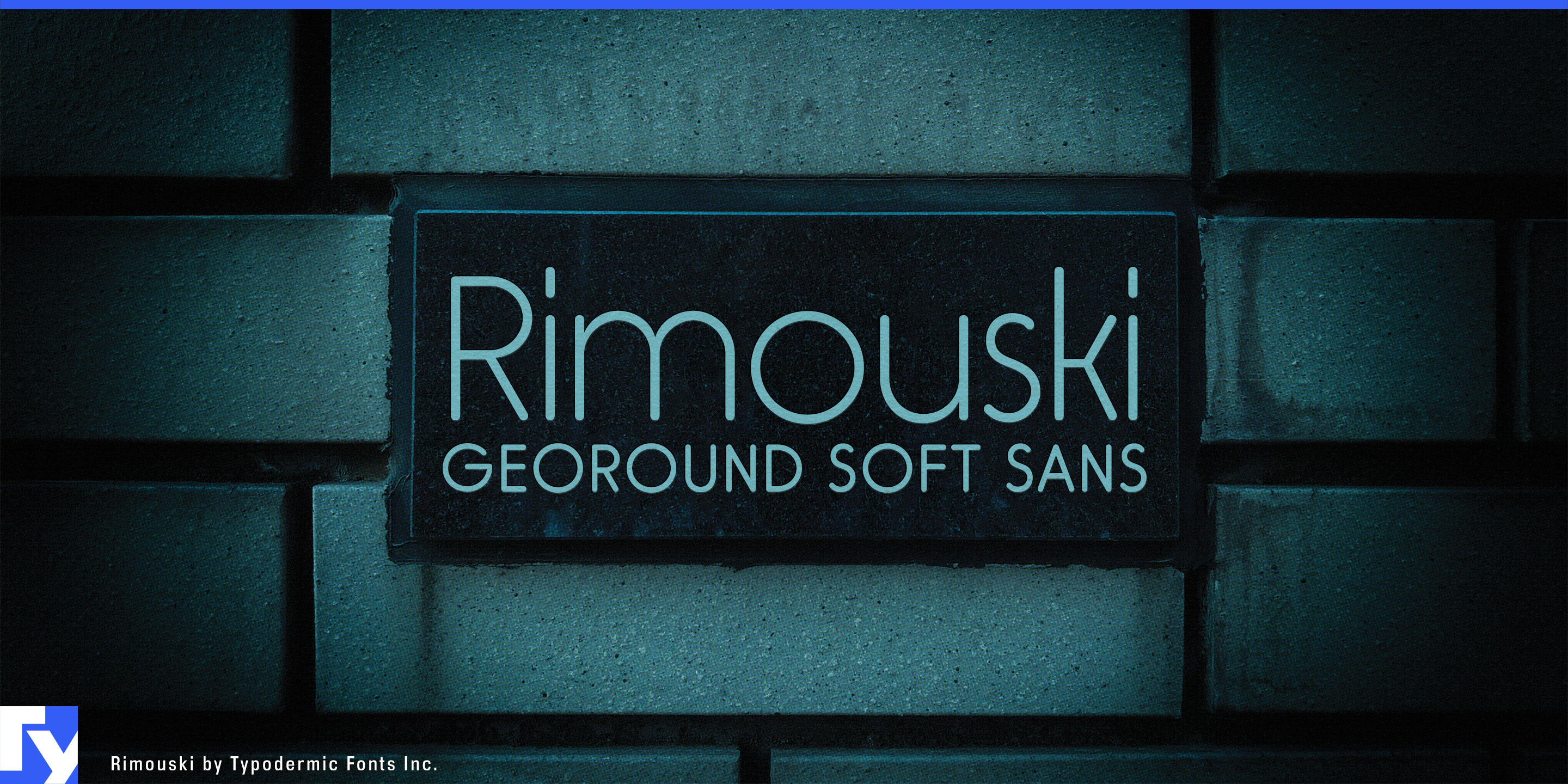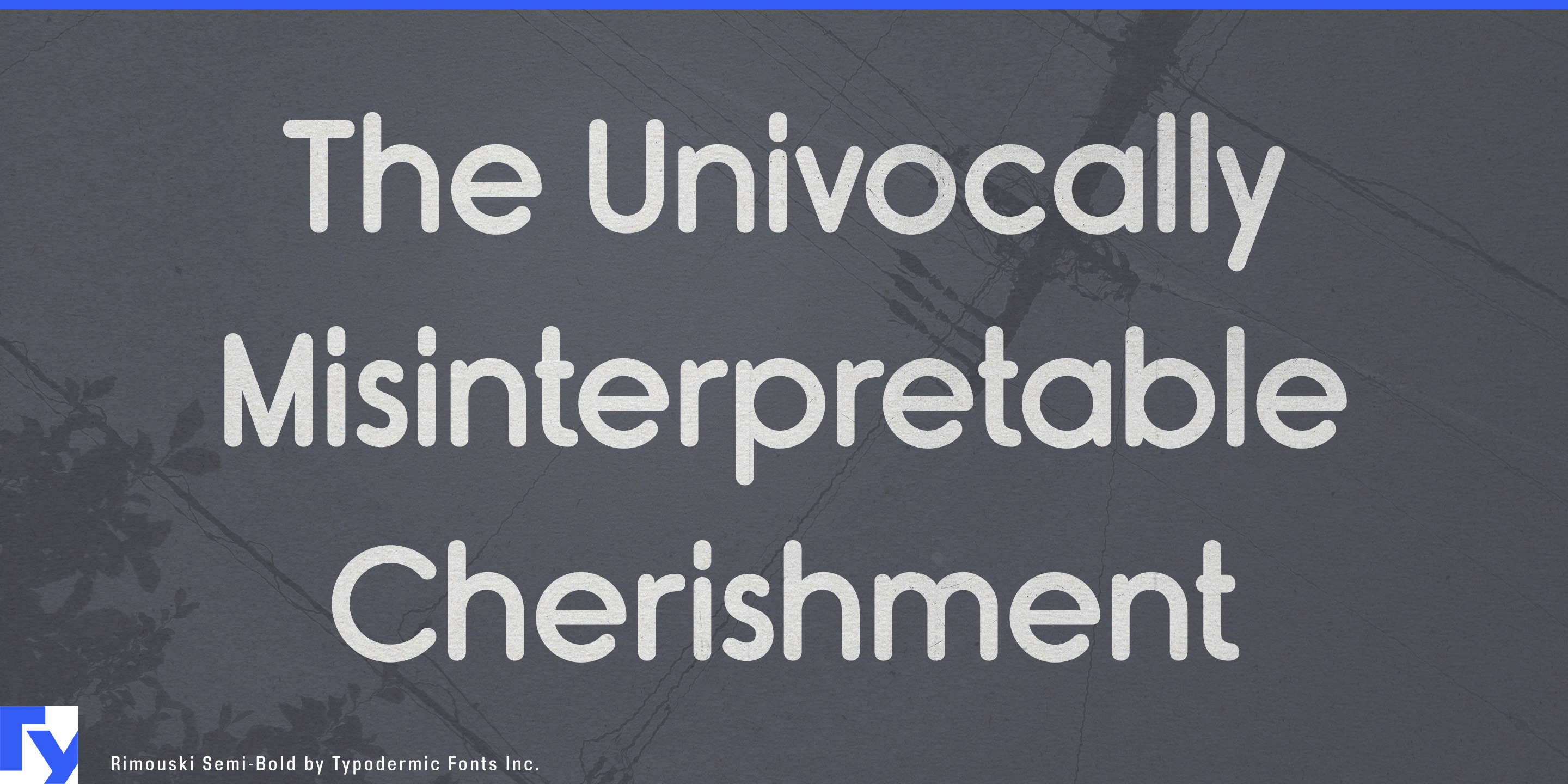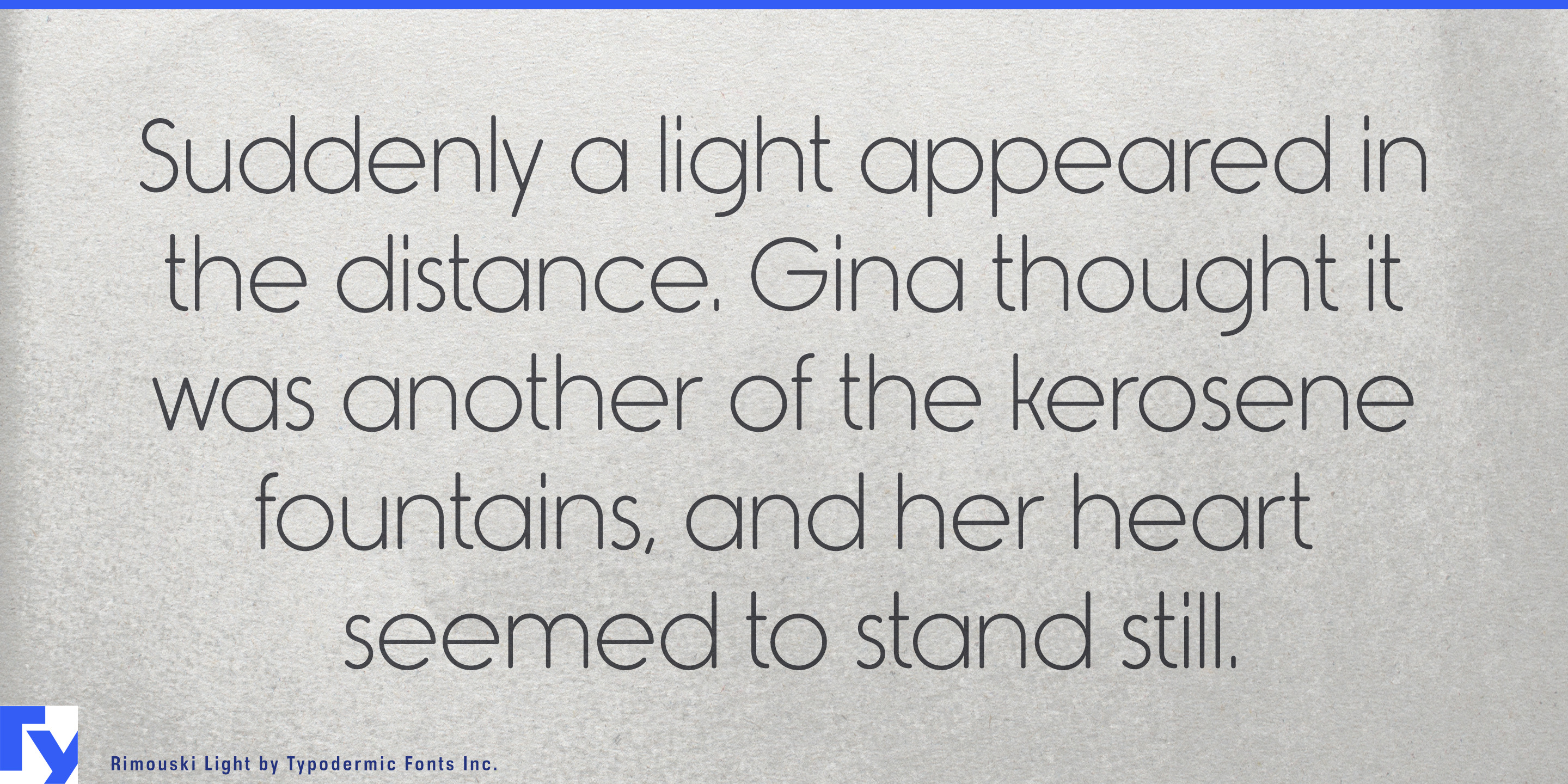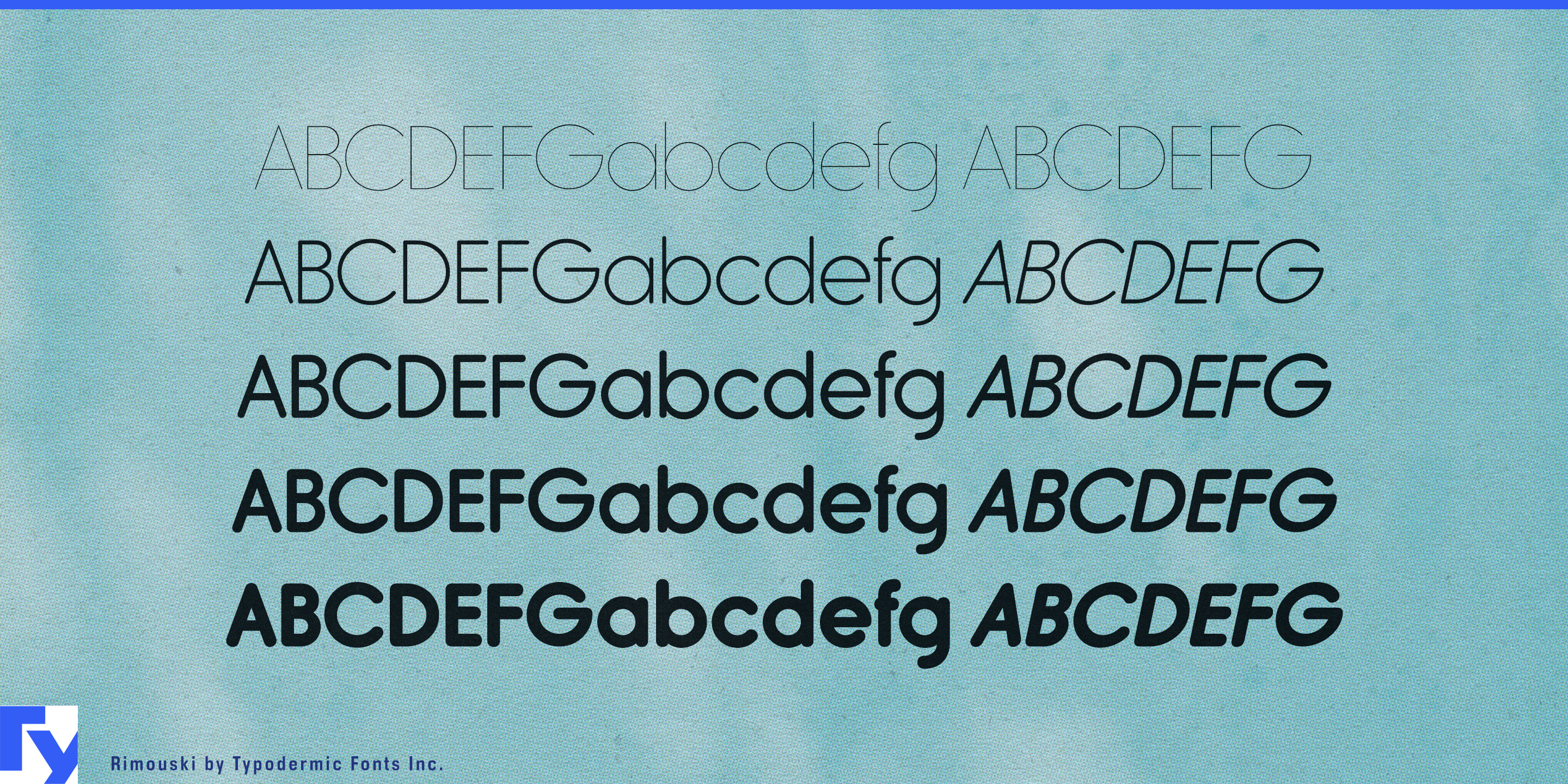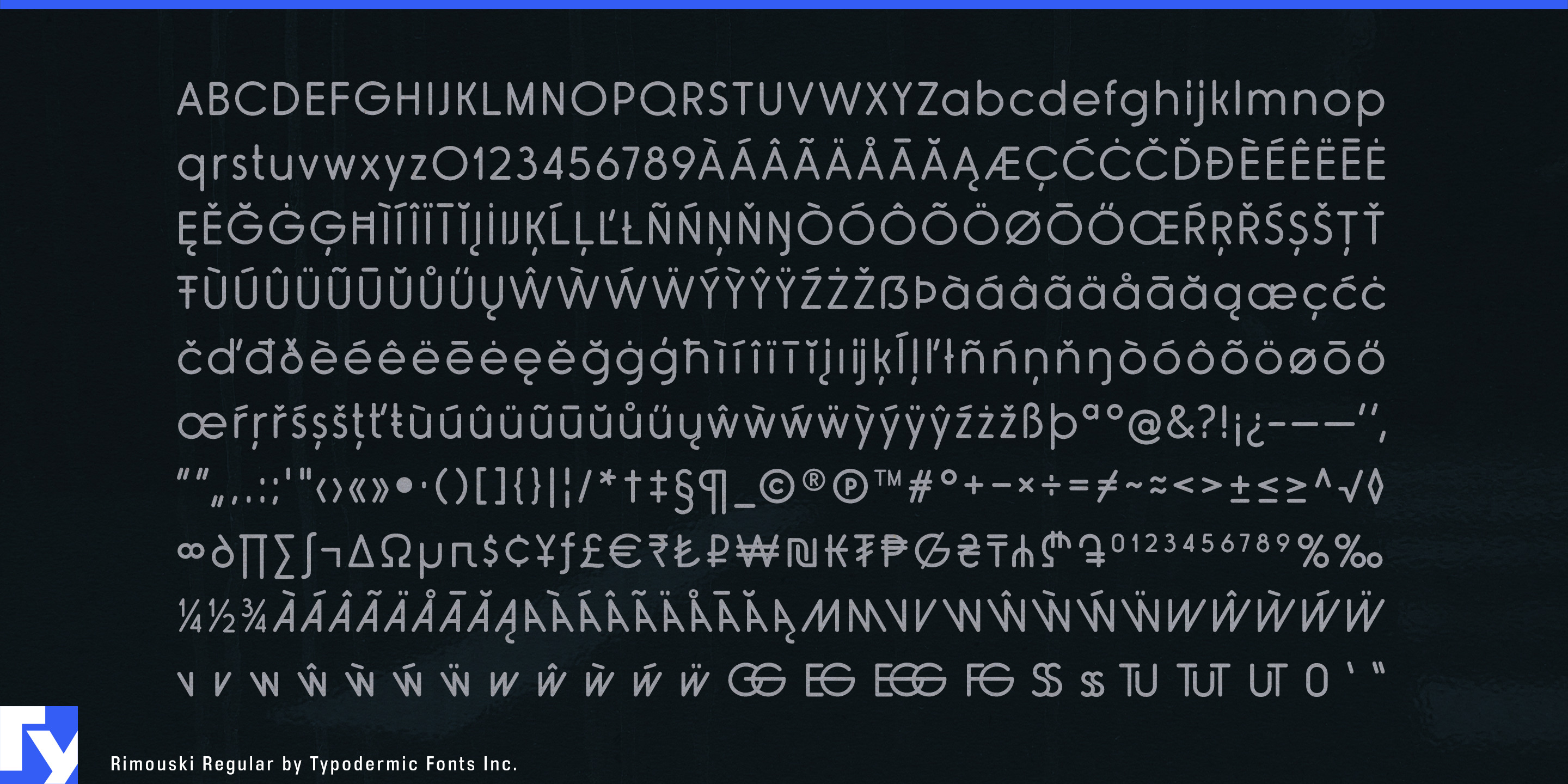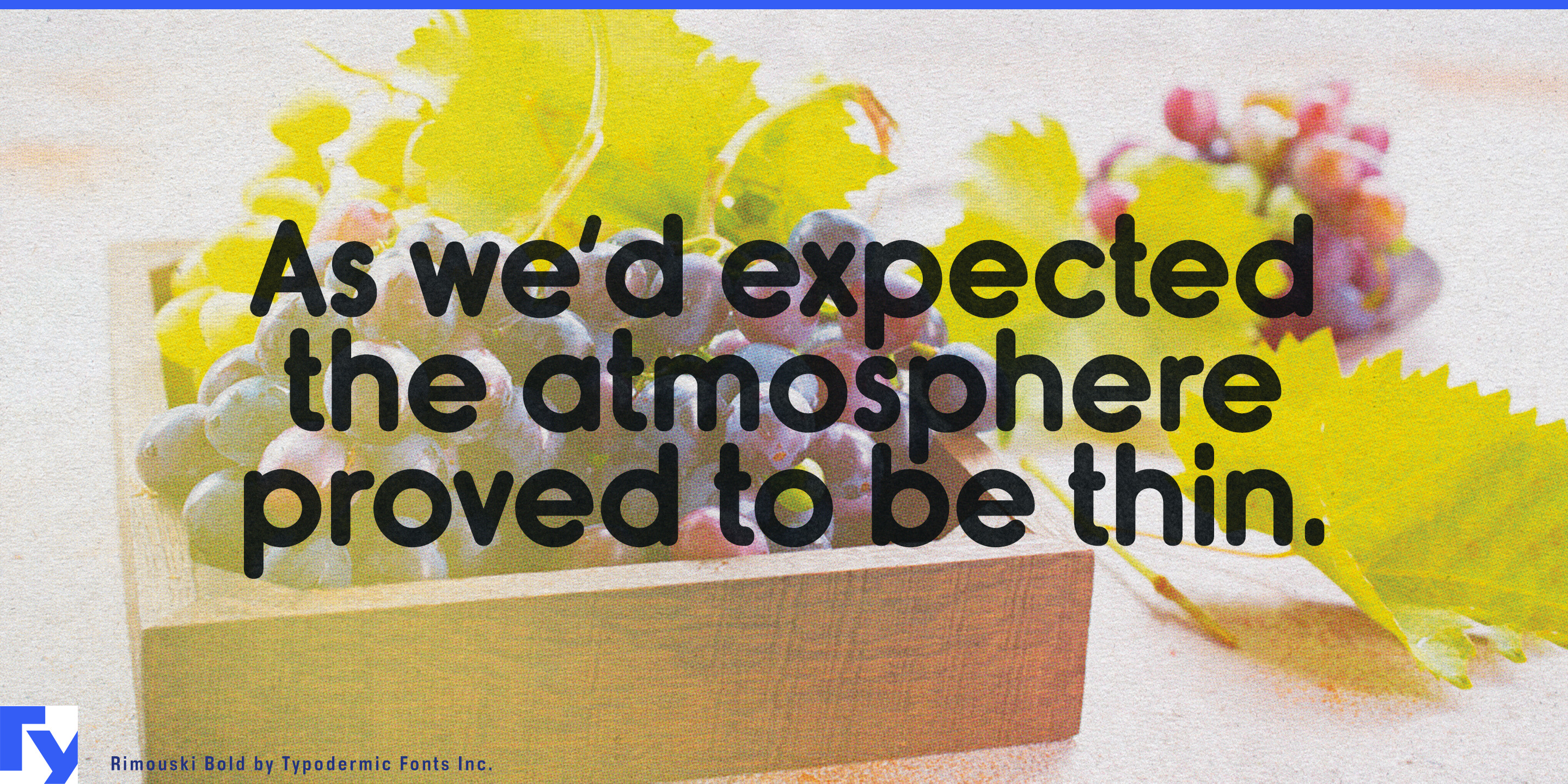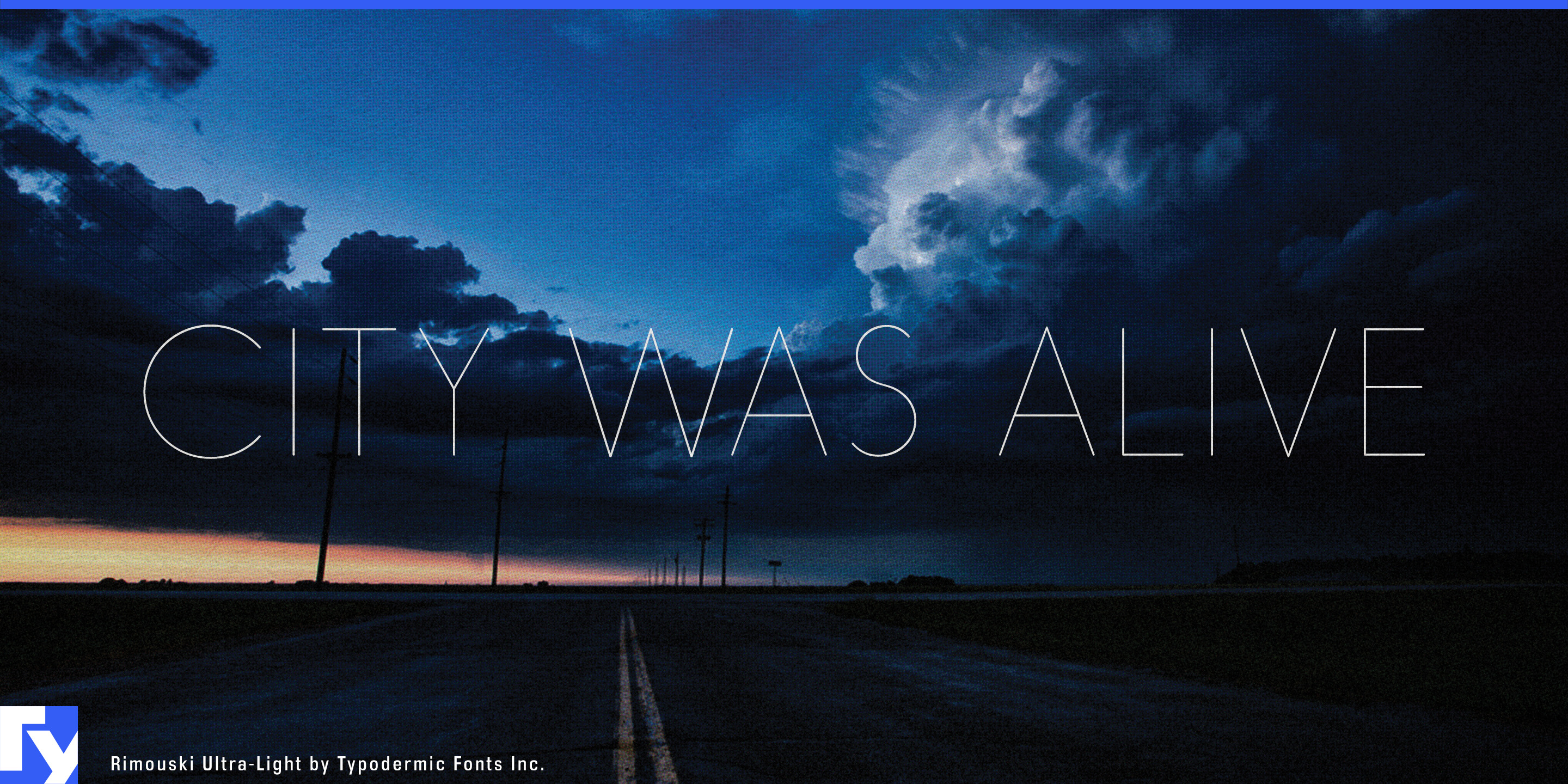
Rimouski
Approachable typography often gets pushed toward one of two extremes. A neutral geometric sans can feel polished but impersonal; soften it too much and the result starts looking childish. Rimouski occupies the useful space between them. Its circular construction and rounded terminals give it an easygoing quality, while the underlying geometry keeps names, headings and short copy orderly and composed.
Pet care is especially well suited to that balance. Veterinary clinics, grooming salons, dog daycare, pet hotels, adoption services and specialty pet shops need identities that feel welcoming without becoming cartoonish. Rimouski can carry a clinic name, grooming menu, appointment card, storefront or seasonal campaign with enough warmth to suit the subject while retaining the structure expected from a professional service.
Family-facing healthcare presents a similar problem. Pediatric dentists, orthodontists, family optometrists and neighborhood wellness clinics often need to reassure without looking either institutional or deliberately juvenile. Rimouski can soften clinic names, service headings and waiting-room graphics while a more conventional companion face handles dense or highly functional information.
Community recreation and informal education give that friendliness a broader audience. Swimming schools, recreation centers, public libraries, tutoring centers, language schools, coding clubs, art classes and museum workshops may serve children, teenagers and adults at the same time. Rimouski can make program names, seasonal guides, class headings and posters feel accessible without making the organization look as though it exists only for kids.
Bakery cafés, breakfast restaurants, juice bars and family cafés offer another useful setting. Shop names, menu headings, pastry boxes and window graphics can gain warmth from Rimouski’s rounded construction without drifting into handwritten craft lettering.
Rimouski also includes alternate forms that let the geometry become less predictable when an identity needs a stronger signature. Angled cuts, clipped shapes and unusual joins can be introduced selectively in a wordmark or campaign headline while the standard forms handle the rest of the system. That gives designers a way to escape the sameness common to rounded geometric sans serifs without abandoning the family.
Rimouski works best when friendliness needs some discipline behind it: the veterinary clinic that should feel caring but professional, the tutoring center that welcomes adults as well as children, the recreation program serving an entire neighborhood, or the café that wants warmth without whimsy.